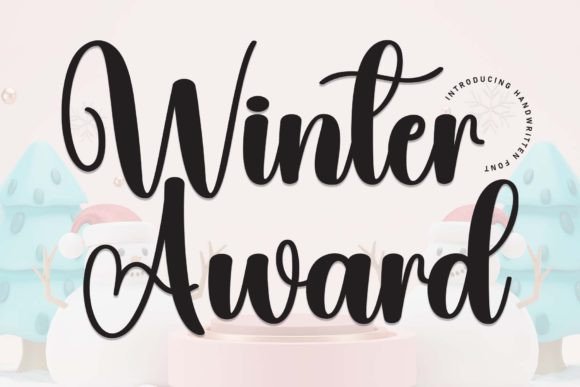
Introducing Winter Award Font, a captivating script font designed by andikastudio. This exquisite font is the perfect choice for those seeking the best fonts for clean design. With its flowing handwritten style, Winter Award Font adds an elegant touch to any project, making it truly stand out.
Experience the beauty of Winter Award Font and let its timeless and distinct style captivate your audience. Whether you're designing logos, invitations, or branding materials, this font guarantees to elevate your creations to new heights.
Crafted with meticulous attention to detail, Winter Award Font exudes a sense of sophistication and charm. Its smooth curves and graceful strokes create a visually pleasing aesthetic that is both modern and classic. Embrace the elegance it brings to your designs and watch them come to life effortlessly.
Winter Award Font is more than just a font – it's an invitation to unleash your creativity. Let its versatility inspire your imagination and transform ordinary projects into extraordinary ones. Whether you want to create stunning banners, eye-catching headlines, or elegant wedding stationery, this font has got you covered.
Stand out from the crowd and make a lasting impression with Winter Award Font. Its unique and captivating style will make your designs unforgettable. Leave a lasting impact on your audience and evoke emotions with every stroke of this beautiful script font.
Unleash your artistic potential with Winter Award Font and experience the power of its elegant and timeless design. Get ready to amaze your audience and achieve remarkable results with this remarkable font.